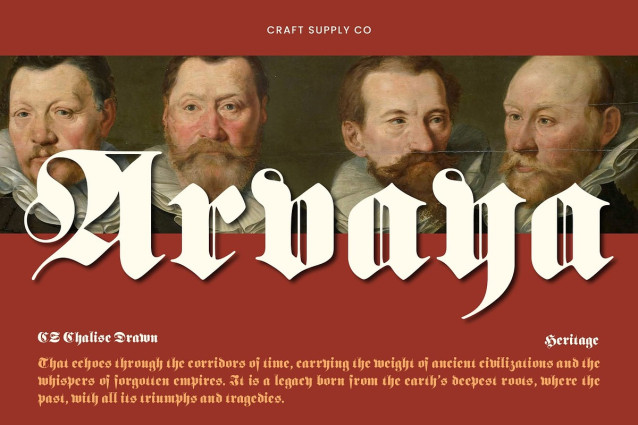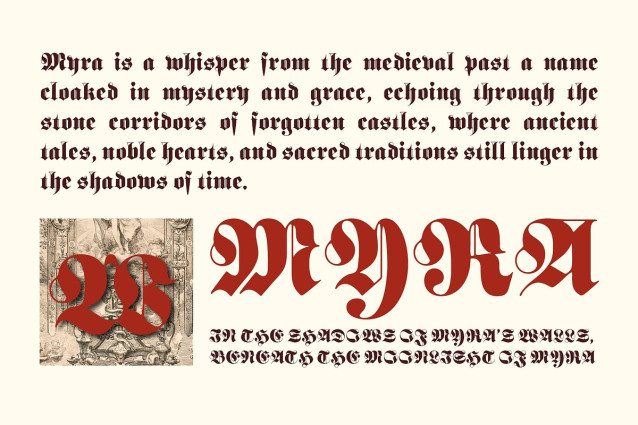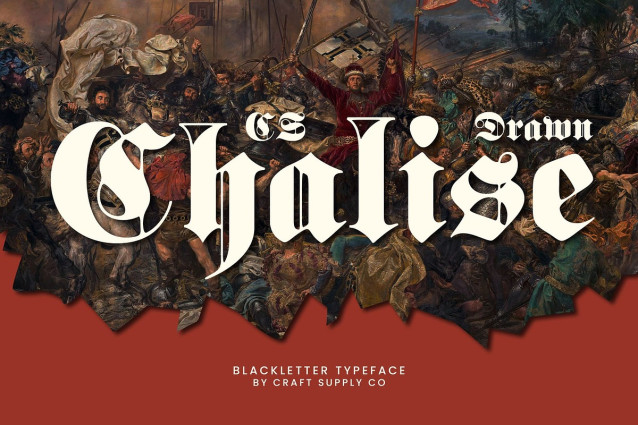
CS Chalise Drawn Font
CS Chalise Drawn Font – This is a modern blackletter font that combines the timeless style of traditional blackletter typography with a unique, expressive drawn effect. Its sharp, angular forms evoke a sense of mystery and strength, while the added texture introduces an artistic and handcrafted feel. This combination of classic and contemporary elements.
Expressive and Mysterious Hand-Drawn Details The drawn effect amplifies the dramatic nature of this blackletter display font, offering a raw, organic quality that sets it apart from typical serif fonts. These intricate, hand-drawn elements infuse the font with character, making it perfect for designs that seek to evoke intrigue and sophistication.
Perfect for Dark-Themed, Alternative, and Bold Branding Whether you’re creating visuals for alternative branding, dark-themed posters, or unique editorial designs, this blackletter font offers a powerful aesthetic. Its bold and artistic style is perfect for projects that want to make a statement, especially in the realms of music, fashion, and subculture.
Versatile for Bold, Expressive Visuals CS Chalise Drawn shines in various design applications, from edgy branding and album covers to dark-themed event posters and creative packaging. It delivers a strong, expressive presence that commands attention, making it the go-to choice for designers who want their projects to stand out with a touch of rebellious elegance.